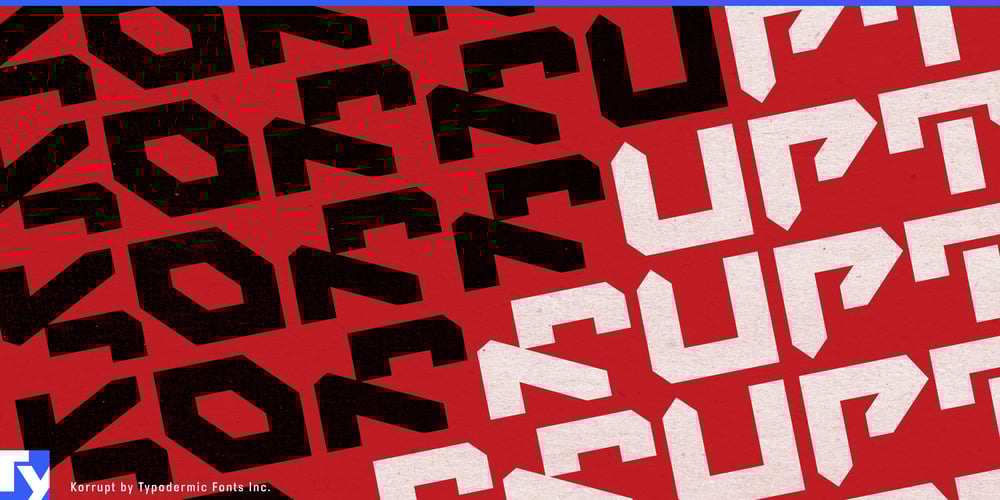
Korrupt Font Family was designed by Ray Larabie and published by Typodermic. Korrupt contains 1 styles and family package options. Korrupt: a typeface that doesn’t just break the mold—it annihilates it. Born from the twisted imagination of a designer obsessed with LCD segmented digits, this font is a paradoxical masterpiece that marries the cold precision of digital displays with the chaotic energy of a post-singularity nightmare.At first glance, Korrupt’s stark, sinister silhouette sends shivers down your spine. But look closer, and you’ll see the ghost of those beloved LCD digits haunting each letterform, a digital specter trapped in an analog nightmare. It’s as if the designer asked, “What if the numbers on your alarm clock had a mental breakdown?” and Korrupt was the unsettling answer. This typeface doesn’t just communicate—it corrupts. Its conflicting angles and antihumanist design elements create a visual cacophony that’s as mesmerizing as it is malevolent. Each character is a portal to a bizarre metadystopia where the lines between human and machine blur into oblivion. It’s the typographic equivalent of a glitch in the matrix, a psychedelic apparatus that turns every word into a warning from a future we’re not sure we want to see.Korrupt speaks the language of nanopunk, whispers in post-cyberpunk dialects, and screams in biopunk tongues. It’s the font of choice for designers who find ‘edgy’ too tame and ‘avant-garde’ too mainstream. Whether you’re crafting the user interface for a rogue AI or designing propaganda for a nanotech rebellion, Korrupt delivers with unsettling efficiency. But don’t let its dystopian demeanor fool you. Korrupt is a linguistic polyglot, fluent in a staggering array of Latin-based European languages. From the neon-drenched alleys of a future Berlin to the bioengineered jungles of a post-apocalyptic Amazon, Korrupt ensures your message spreads like a digital virus across borders and realities.Ready to inject your designs with a dose of digital dread? Let Korrupt be your typographic co-conspirator. It’s a glitch in the system, a corruption in the code of conventional design. Don’t just set type; set off a chain reaction of visual anarchy. Welcome to the future. It’s not pretty, but it’s fascinatingly Korrupt.